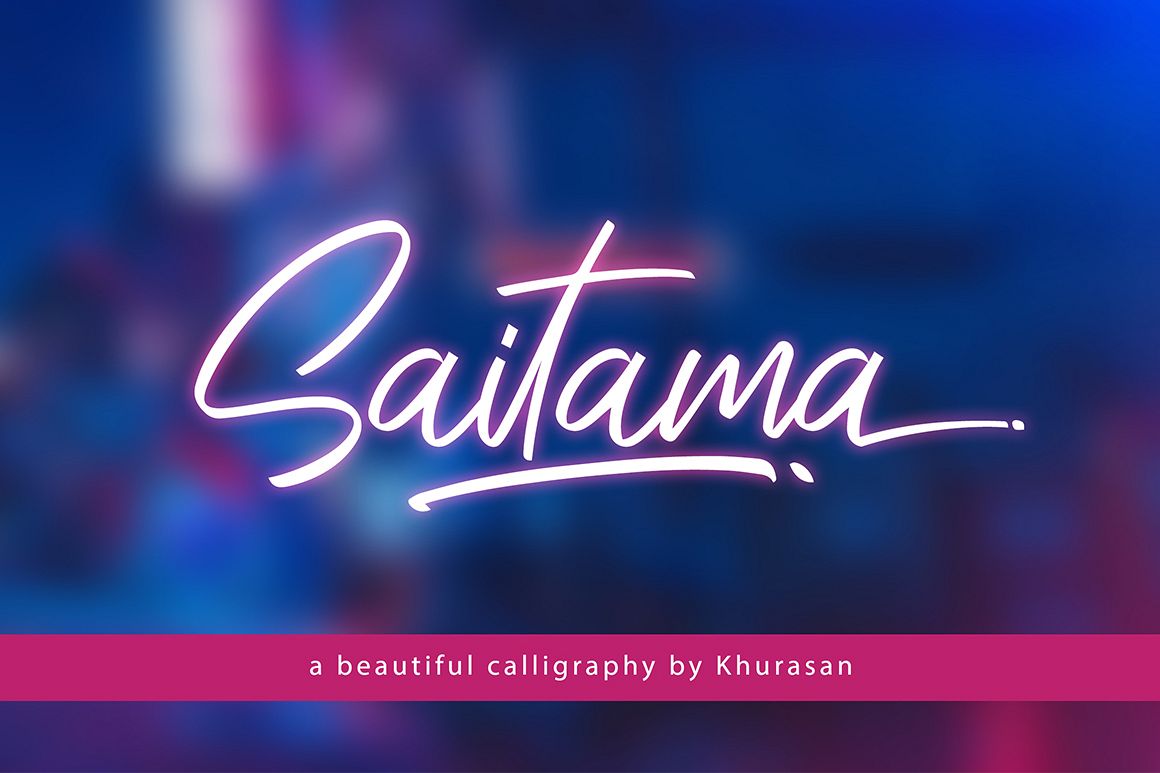
Saitama is a new calligraphy handwritten typeface, elegant and vintage feel character set. The Saitama font includes a ful set capital and lowercase letters, as well as multi-lingual support, currency figures, numerals, punctuation & some extra glyphs.
Features:- Uppercase & Lowercase
- Numerals & Punctuations
- Stylistic alternates
- Ligatures & Swash